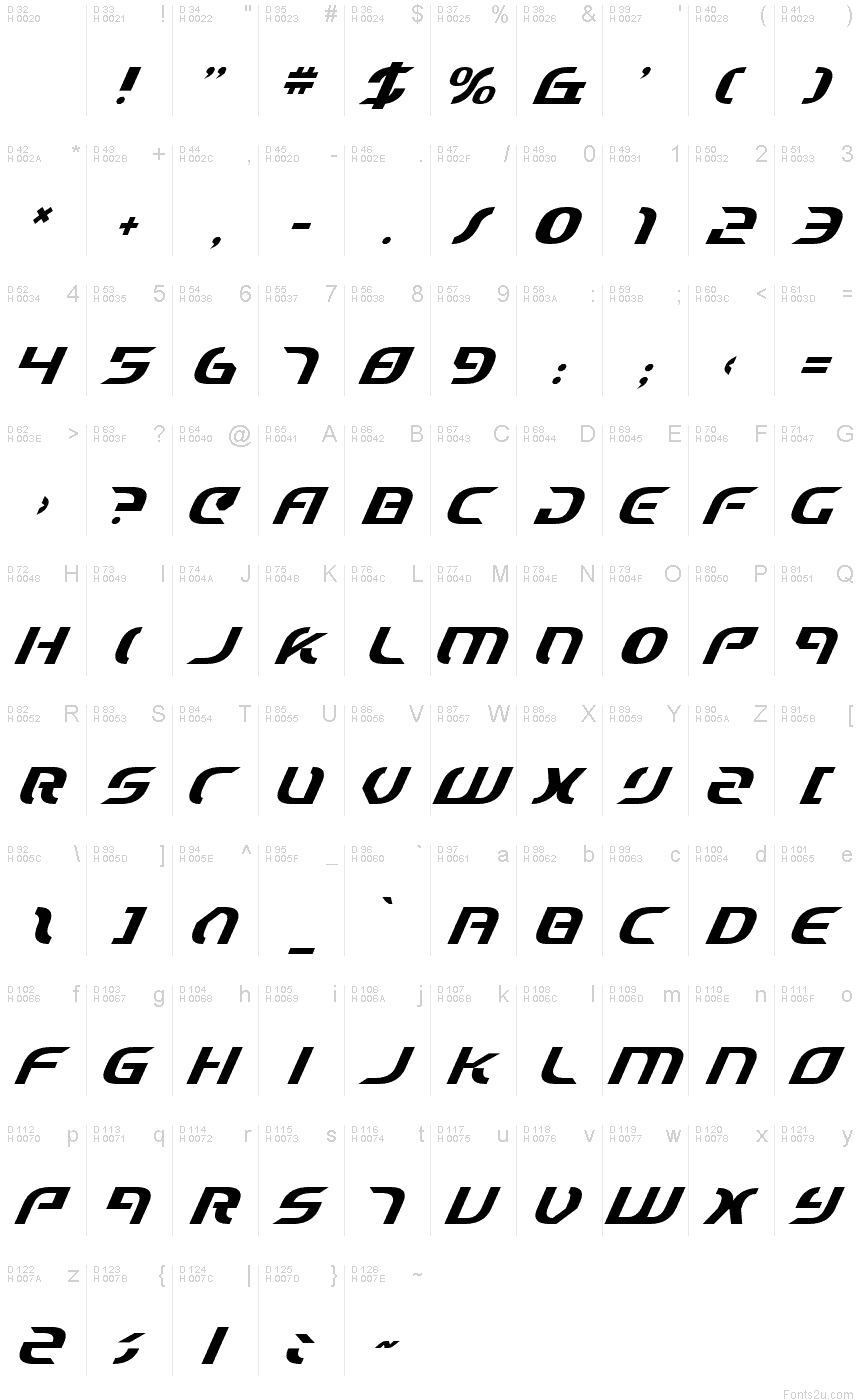
Starfighter Cadet Italic by Daniel Zadorozny of Iconian Fonts is a free futuristic display font with a fast, engineered silhouette. Broad, forward-slanting letters combine sweeping curves with sharp cut-ins and squared inner shapes, giving the design the look of streamlined machine parts.
Spaceflight, racing, and advanced technology are its most convincing subjects. The forceful geometry suits game branding, motorsport merchandise, science-fiction posters, and entertainment graphics. Across these uses, the clipped joins and aerodynamic slant connect the type directly to vehicles, equipment, and high-speed action.
Starfighter Cadet Italic